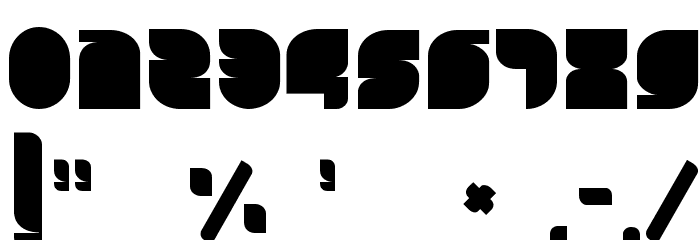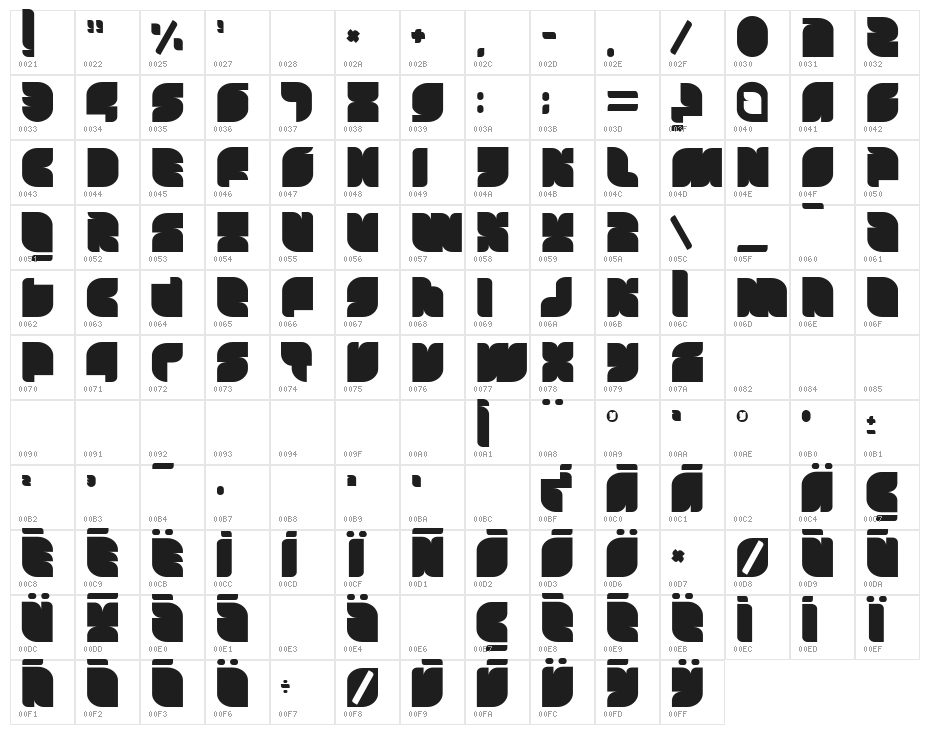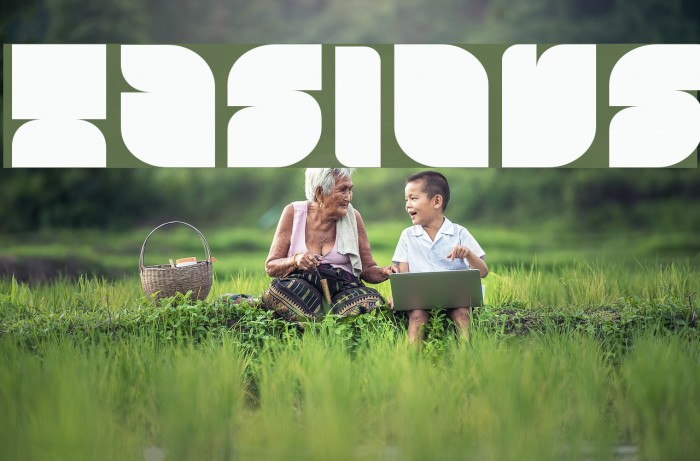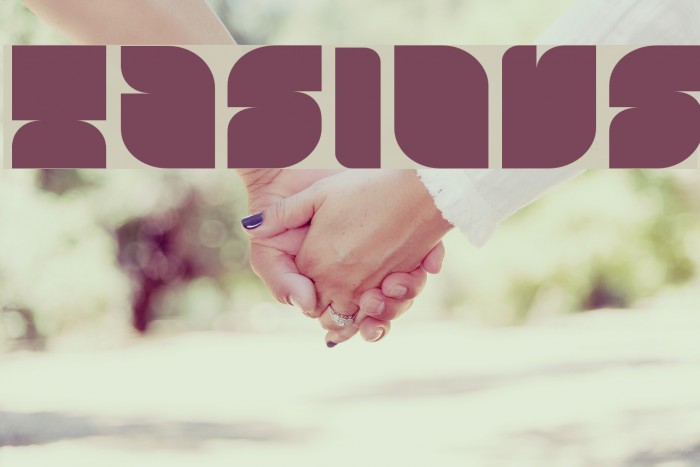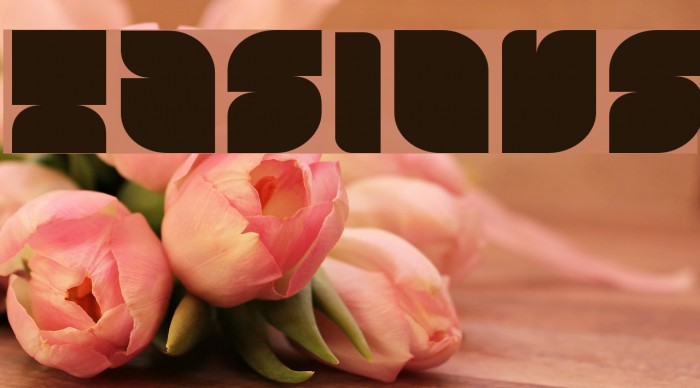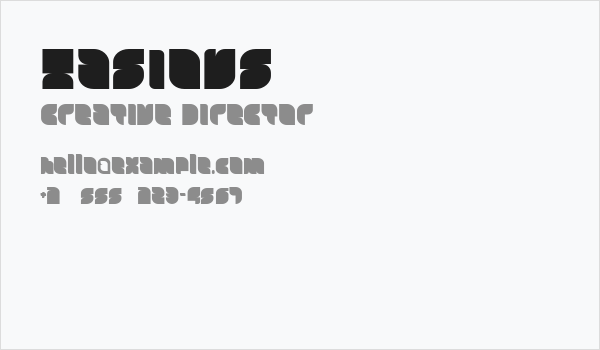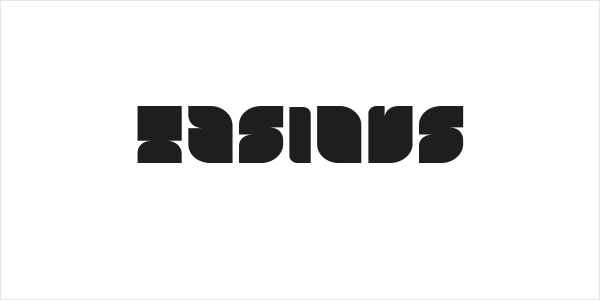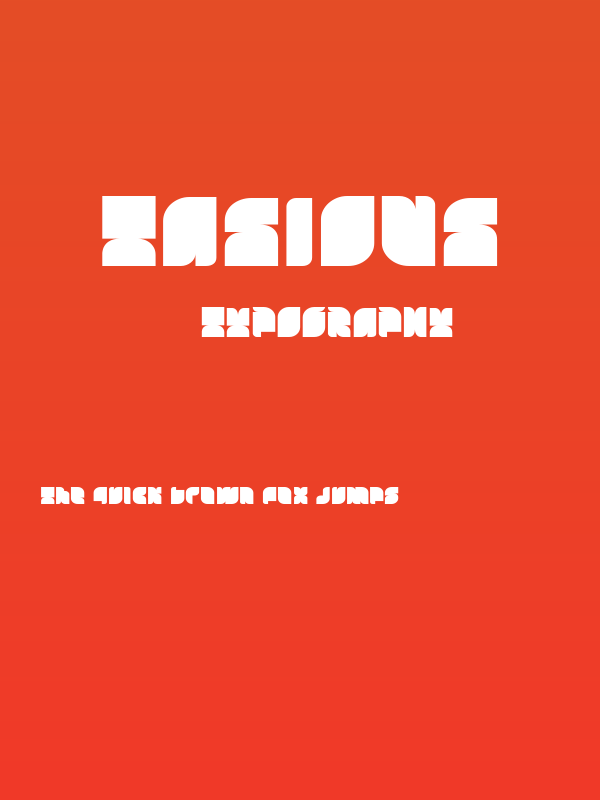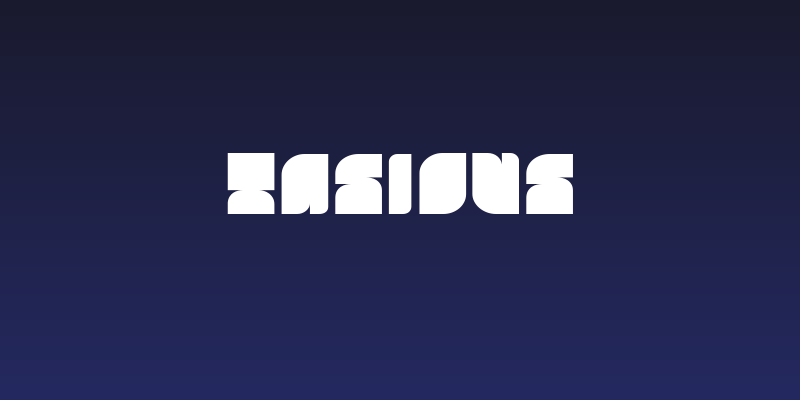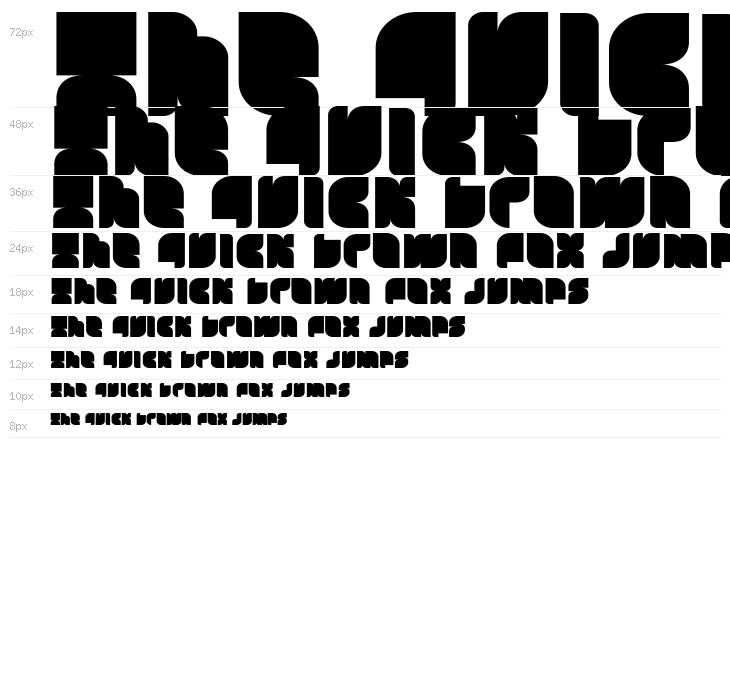
Tasious Font
Tasious Description
This bold and striking font features a highly geometric and blocky design, characterized by its thick, uniform strokes and rounded edges. The letters are constructed with a unique blend of curves and straight lines, creating a futuristic and modern appearance. The uppercase and lowercase characters maintain a consistent style, with the lowercase mirroring the uppercase in form and weight. Numbers and special characters follow the same design principles, ensuring a cohesive look across all glyphs. The font's boldness and distinct style make it an excellent choice for attention-grabbing headlines or logos.
| Proposed Projects | Ideal for branding, posters, headlines, and any project requiring a strong visual impact. |